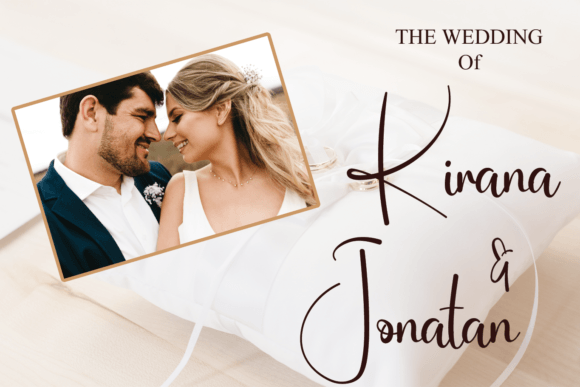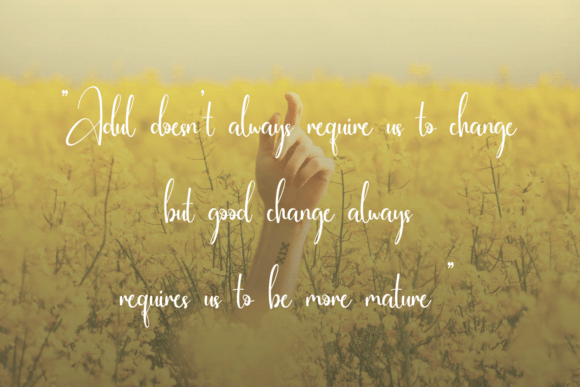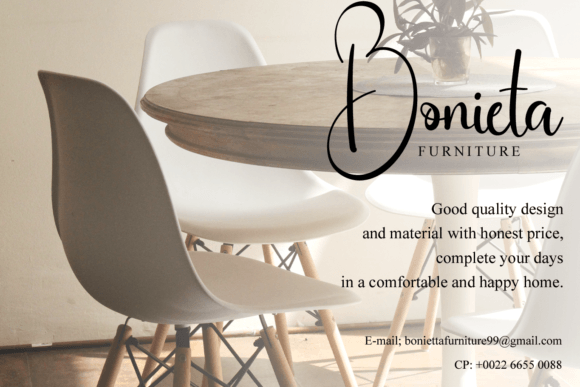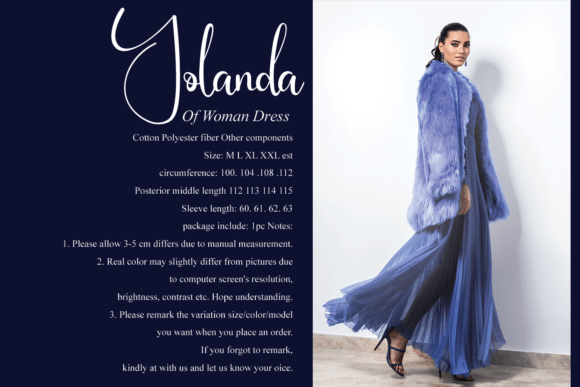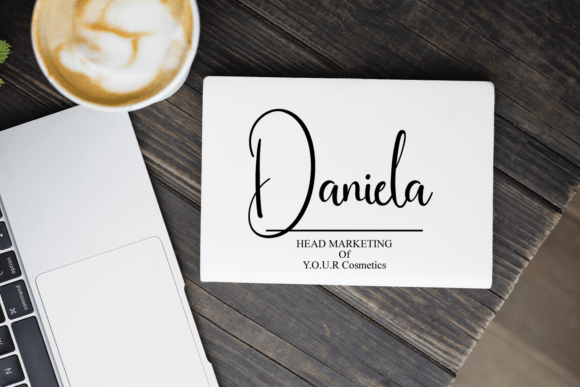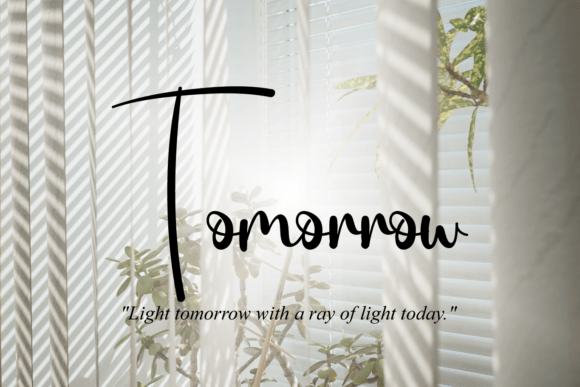
Hello Farmhouse Font: The Perfect Addition to Your Design Arsenal
Are you a designer or crafter looking for a font that exudes romance and sweetness? Look no further than Hello Farmhouse, a beautiful calligraphy script font that is sure to elevate your creative designs to the next level. With its dancing characters and luxurious feel, Hello Farmhouse is the perfect addition to your design arsenal.
What is Hello Farmhouse Font?
Hello Farmhouse is a romantic and sweet calligraphy script font that features characters that seem to dance along the baseline. This beautiful font is perfect for adding a touch of elegance and sophistication to any design or project. Whether you’re working on a wedding invitation, a branding project, or a craft tutorial, Hello Farmhouse is sure to add a luxurious spark to your design.
Key Features of Hello Farmhouse Font
• Romantic and Sweet: Hello Farmhouse is a calligraphy script font that exudes romance and sweetness, making it perfect for designs that require a touch of elegance.
• Dancing Characters: The characters in Hello Farmhouse seem to dance along the baseline, adding a playful and whimsical touch to your design.
• Luxurious Feel: Hello Farmhouse has a luxurious feel that is sure to elevate your designs to the next level.
• Versatile: Hello Farmhouse can be used for a variety of design projects, from wedding invitations to branding projects and craft tutorials.
How to Use Hello Farmhouse Font in Your Designs
Hello Farmhouse is easy to use and can be incorporated into your designs in a variety of ways. Here are a few ideas to get you started:
• Wedding Invitations: Use Hello Farmhouse to create beautiful and elegant wedding invitations that set the tone for the big day.
• Branding Projects: Add a touch of luxury to your branding projects with Hello Farmhouse, perfect for high-end clients or products.
• Craft Tutorials: Use Hello Farmhouse to add a personal touch to your craft tutorials, making them feel more special and unique.
• Social Media Graphics: Add a touch of elegance to your social media graphics with Hello Farmhouse, perfect for Instagram and Facebook posts.
Benefits of Using Hello Farmhouse Font
There are many benefits to using Hello Farmhouse in your designs, including:
• Unique and Eye-Catching: Hello Farmhouse is a unique and eye-catching font that is sure to grab attention.
• Elegant and Sophisticated: Hello Farmhouse adds an elegant and sophisticated touch to any design, making it perfect for high-end projects.
• Easy to Read: Despite its elegant feel, Hello Farmhouse is easy to read, making it perfect for designs that require a clear and concise message.
• Customizable: Hello Farmhouse can be customized to fit your design needs, making it perfect for a variety of projects.
Hello Farmhouse is a beautiful and elegant calligraphy script font that is sure to add a luxurious spark to any design or project. With its dancing characters and luxurious feel, Hello Farmhouse is the perfect addition to your design arsenal. Whether you’re a designer or crafter, Hello Farmhouse is a must-have font that is sure to elevate your creative designs to the next level.